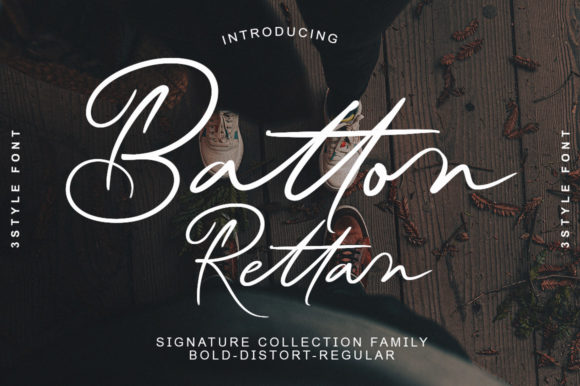
About Batton Rettan Font
Batton Rettan is a beautiful and subtle script font that exudes elegance and class. This font is specially made for those who need a beautiful and refreshing look for their designs. Batton Rettan is PUA encoded which means you can access all of the glyphs and swashes with ease!